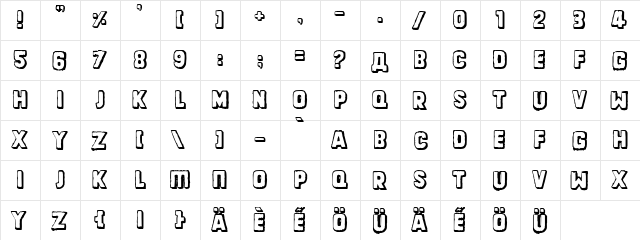
Dinarjev Republika Regular
Design Context for Dinarjev Republika Typeface
Dinarjev Republika is a composed and adaptable typeface that performs quietly and consistently across a wide range of design contexts.
Pro Tip: Use Dinarjev Republika in both headline and body roles to test its range before committing to a single application.